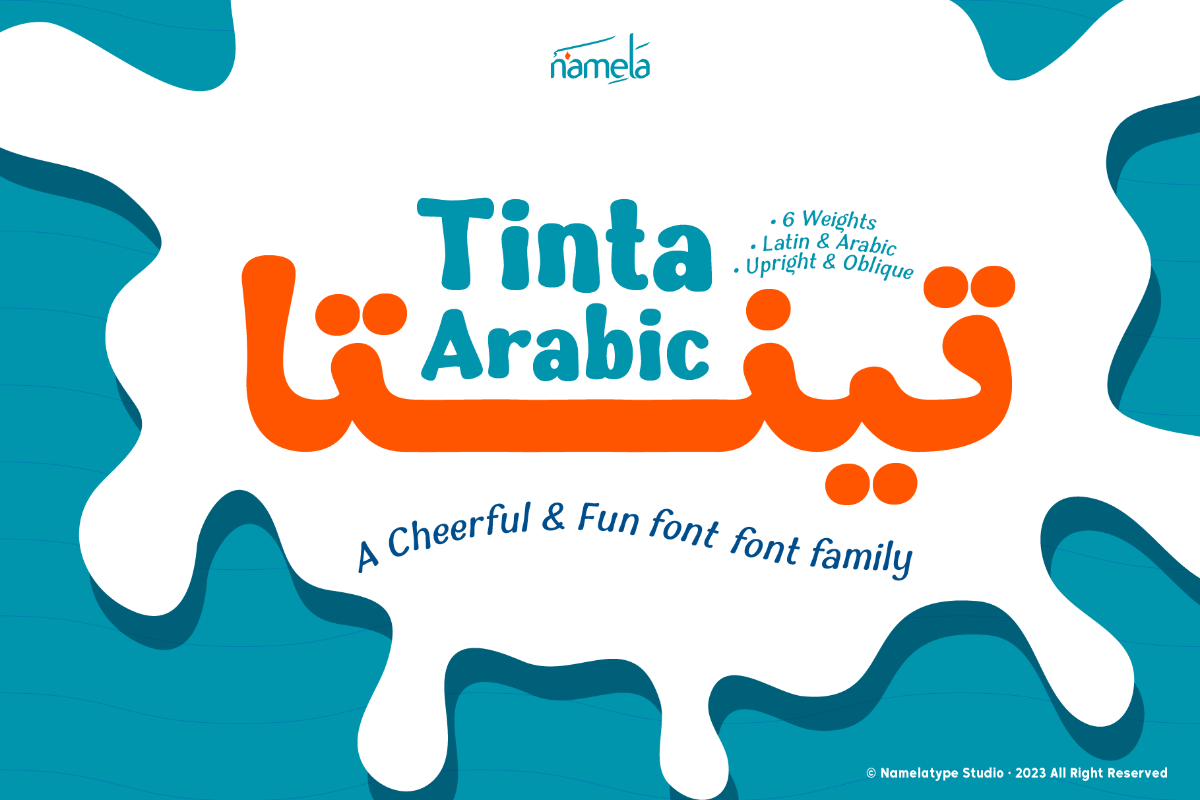
Tinta Arabic Light
Tinta Arabic Font - A Fun and Cheerful Arabic Typeface for Kids' Branding & ePub Arabic typography for children has long lacked what Latin design often takes for granted: a playful, expressive typeface that feels genuinely kid-friendly without sacrificing elegance. Tinta Arabic fills that gap. Built as the Arabic companion to the original Tinta family, it brings ink-flow energy and cheerful personality into Arabic script, as well as Urdu language, Persian language (Farsi), and Kurdish language